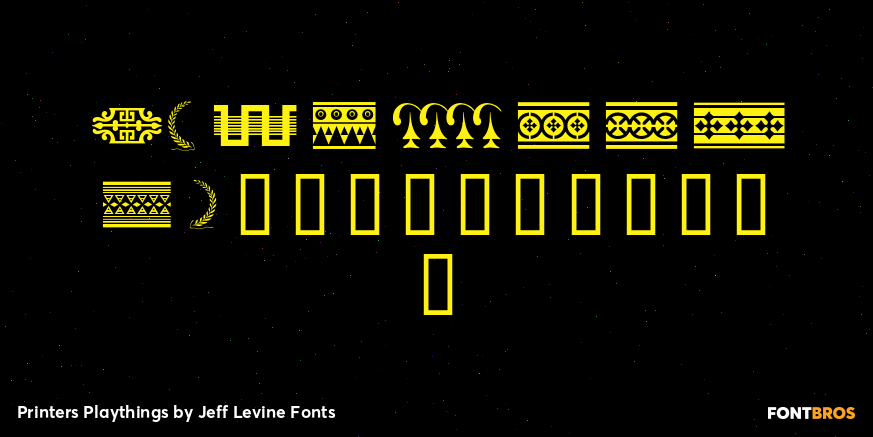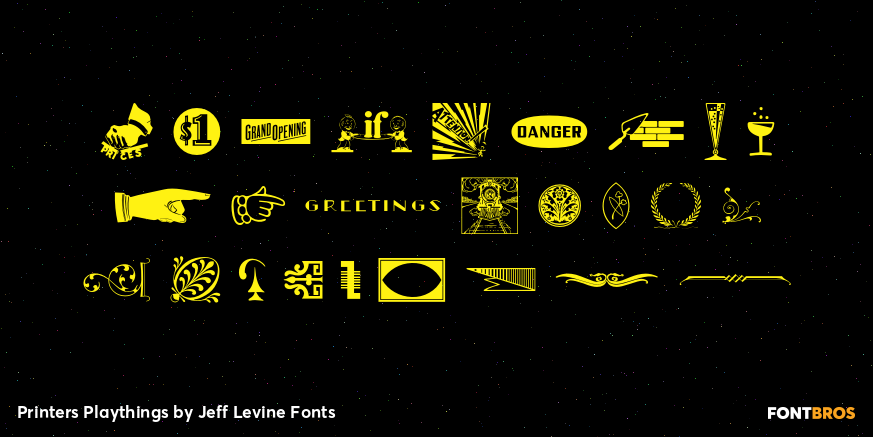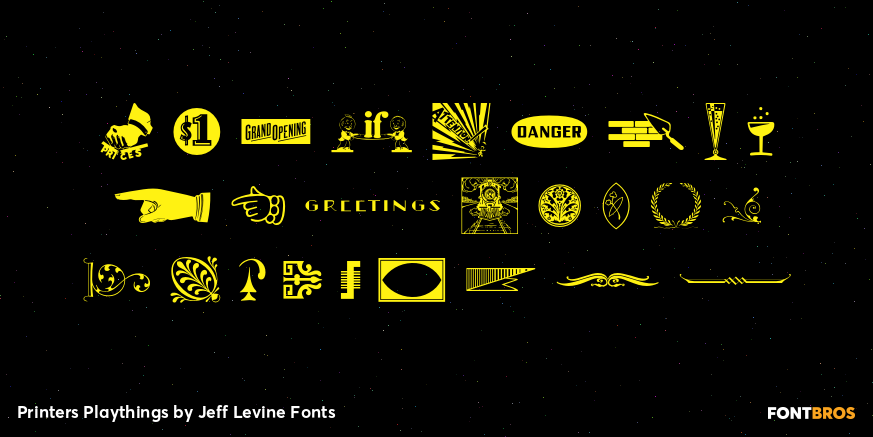
Printers Playthings
Printers Playthings JNL collects more cartoons, embellishments, ornaments and border pieces into one digital typeface; all re-drawn from vintage source material.